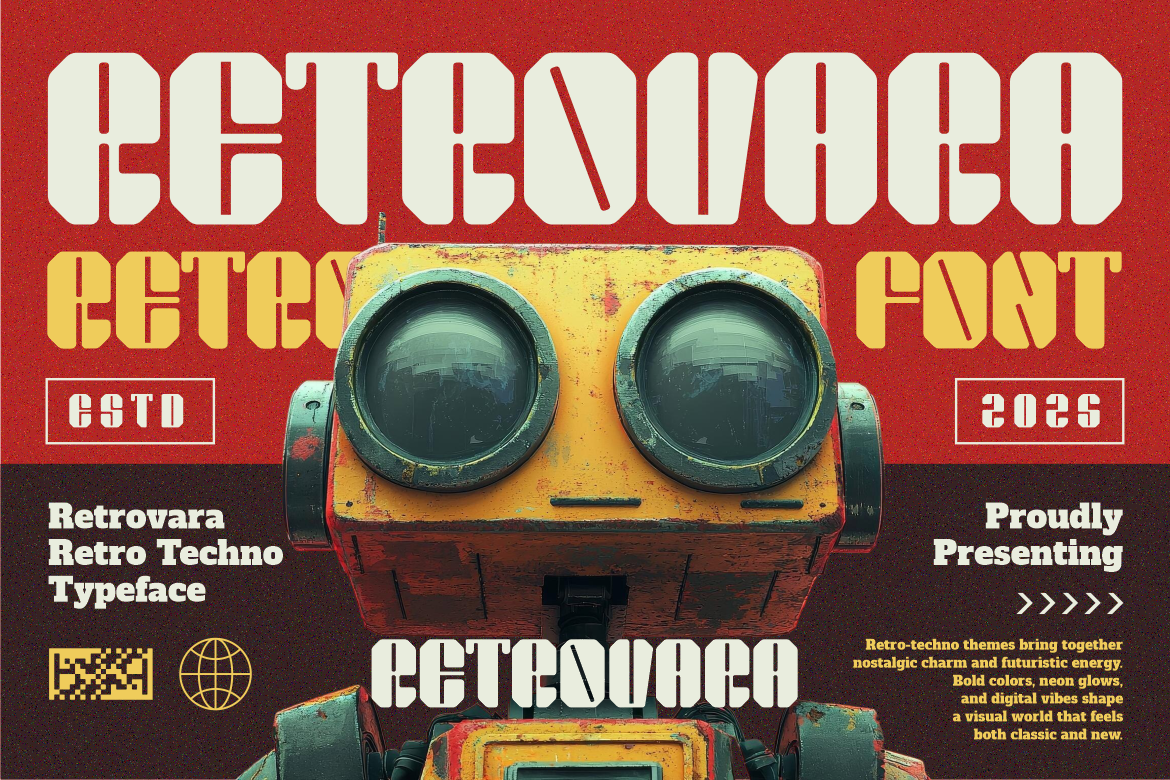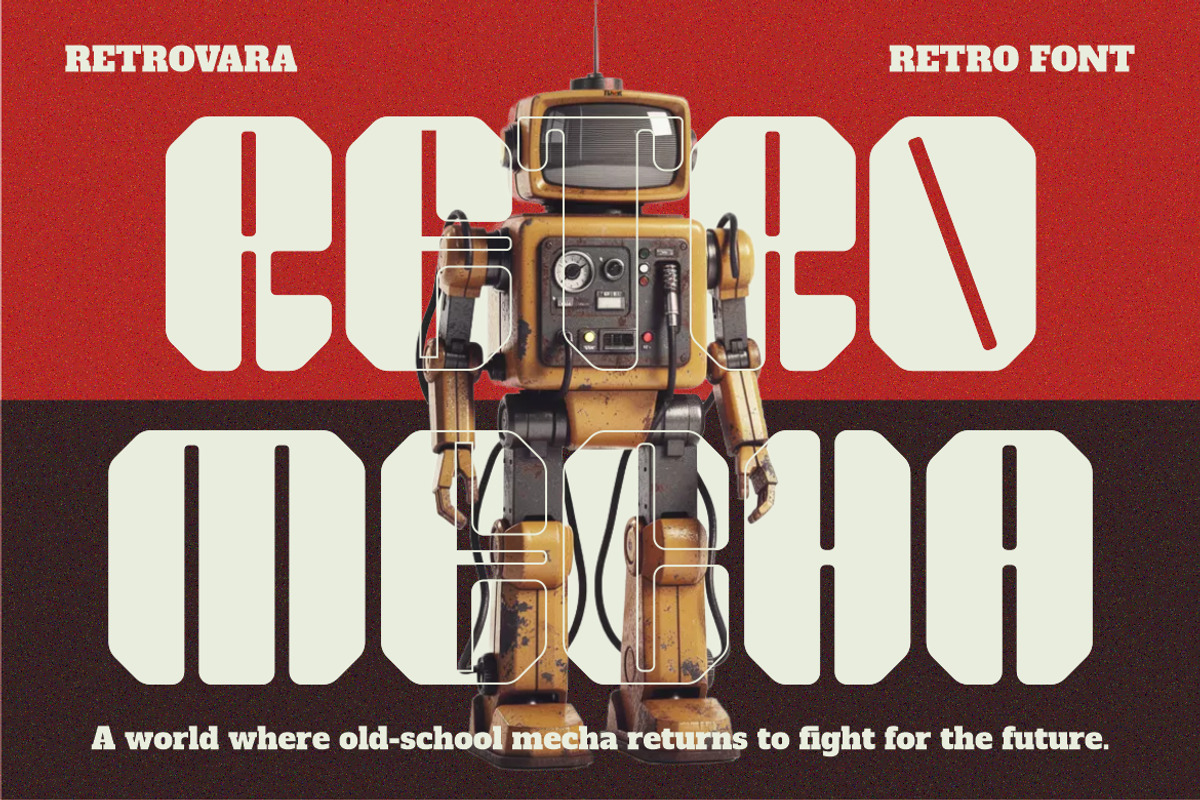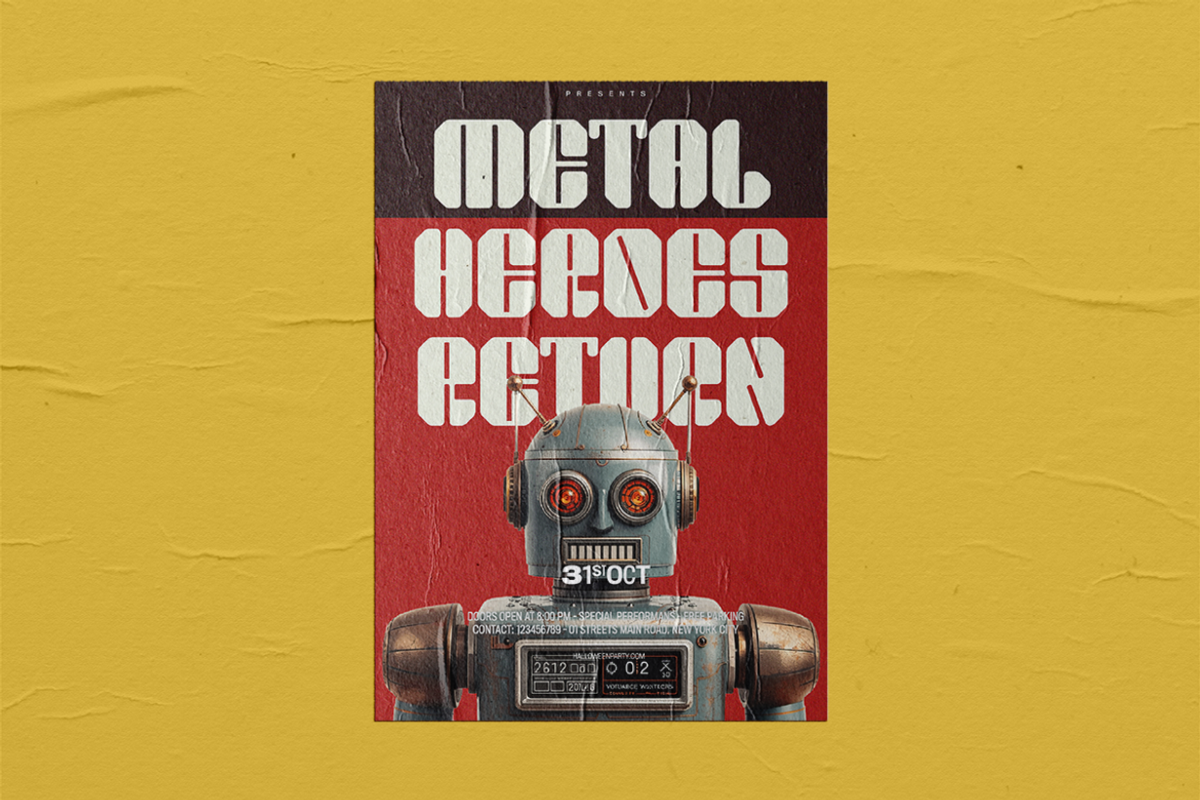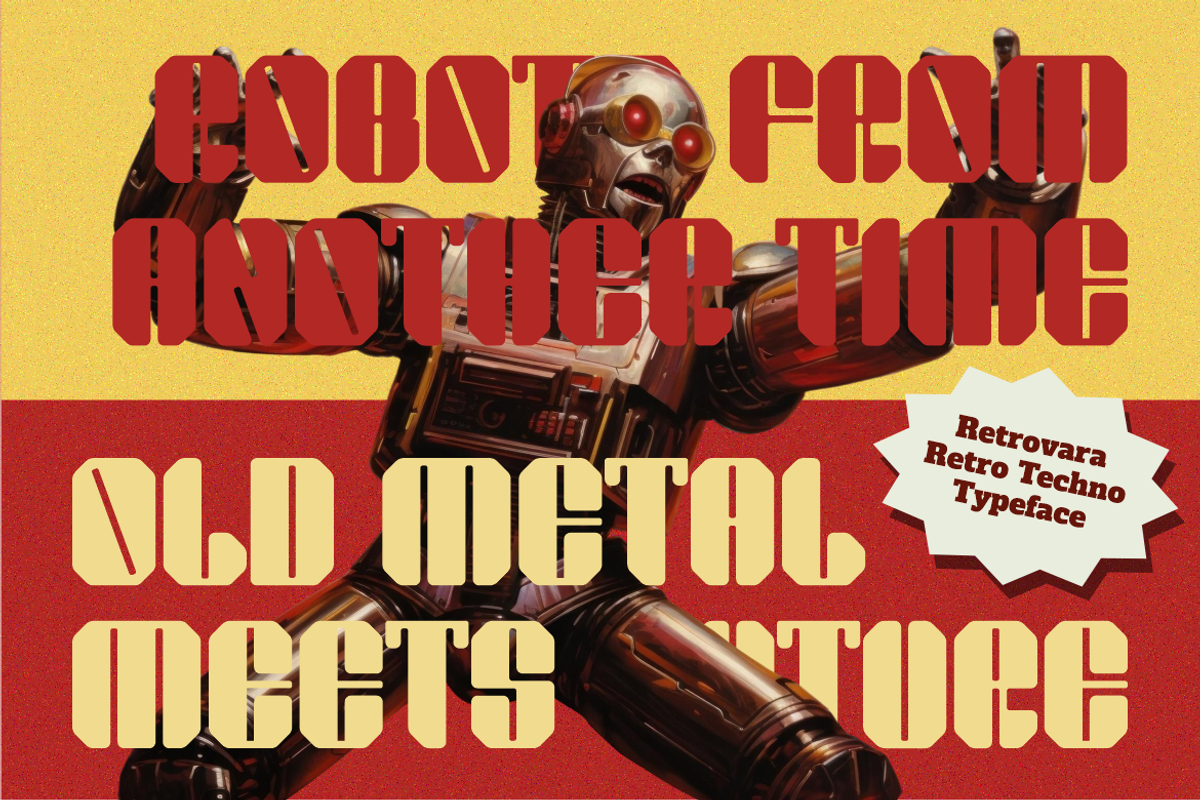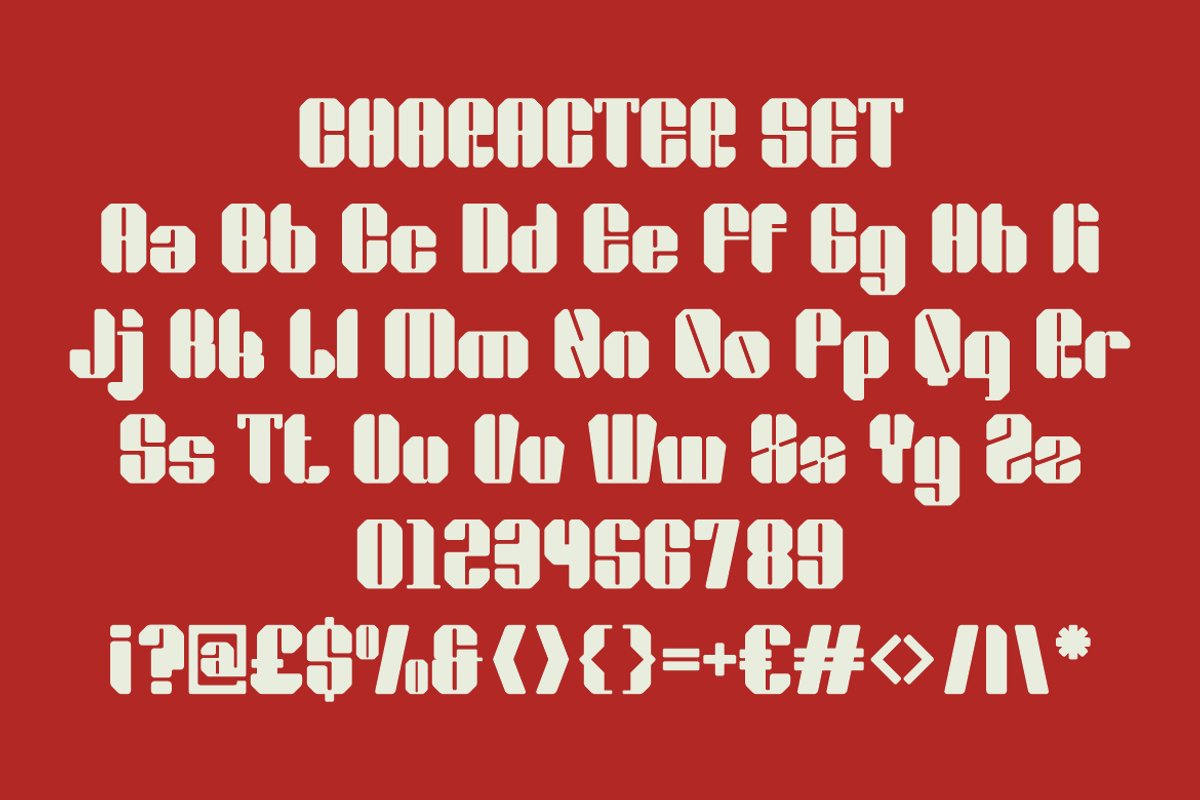
Retrovara Retro Techno Display Font
Retrovara Retro Techno Display Font is designed with bold proportions and confident visual weight. Each letter shows wide strokes, sturdy forms, and controlled spacing that creates a solid and grounded appearance. The characters feel tall and structured, with rounded yet firm edges that keep the shapes readable and distinctive. The font avoids delicate details and instead focuses on strong silhouettes that remain clear at large sizes. Subtle cut-ins and geometric breaks add character without reducing clarity. This balance makes the typeface expressive while staying practical for professional design needs. Retrovara Retro Techno Display Font carries a classic retro tone mixed with a techno edge, giving it a timeless yet energetic personality. The style feels vintage and bold, but it also reflects modern display sensibilities. Letter consistency supports smooth word shapes, which helps headlines and logos stay legible from a distance. Numbers and symbols follow the same visual logic, ensuring uniform rhythm across layouts.
Retrovara Retro Techno Display Font works especially well for logo design, branding systems, advertising visuals, and bold headlines. The font brings a strong identity to posters, packaging, magazine covers, and book covers that require a memorable look. It also suits film titles, stickers, business materials, and creative merchandise that aim for a retro or classic atmosphere. The bold construction helps messages feel confident, powerful, and reliable. Designers can use this font to create nostalgic themes with a modern twist. The typeface supports clear communication while adding personality and character. Retrovara Retro Techno Display Font fits creative projects that want to stand out without feeling playful or casual. It delivers a serious retro presence that feels strong, iconic, and visually striking across many design applications.